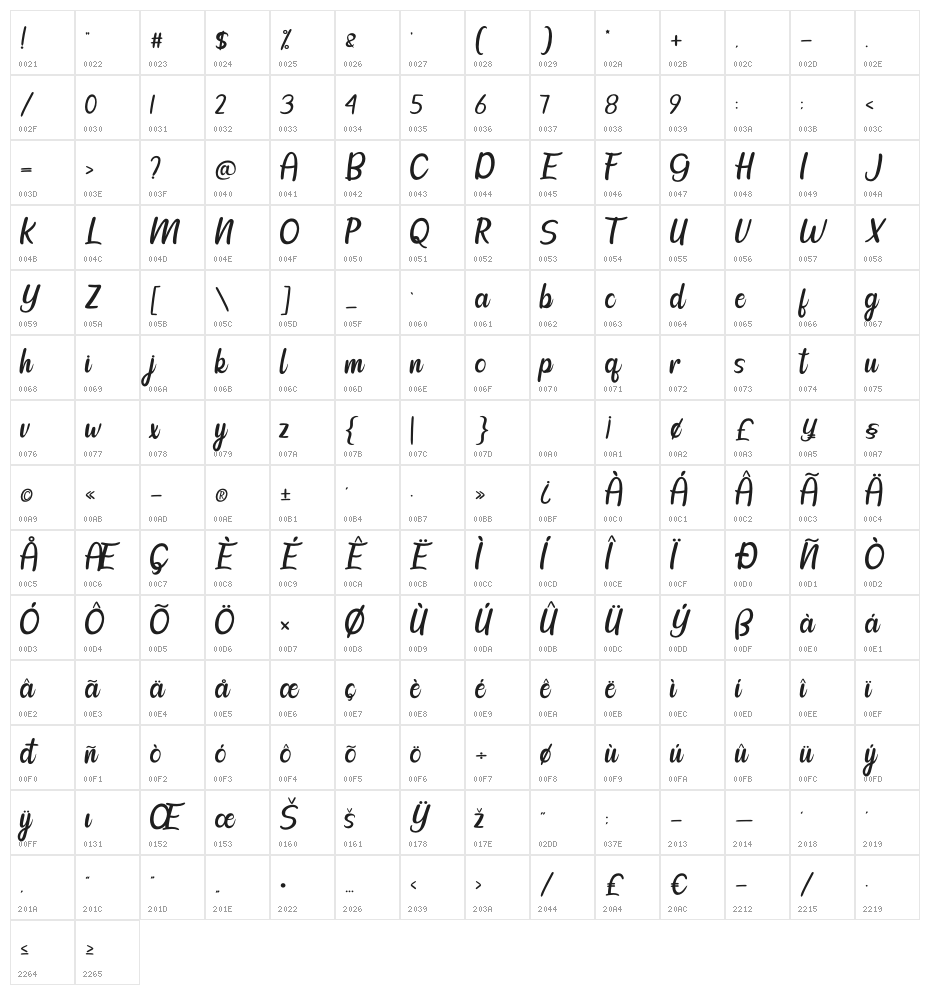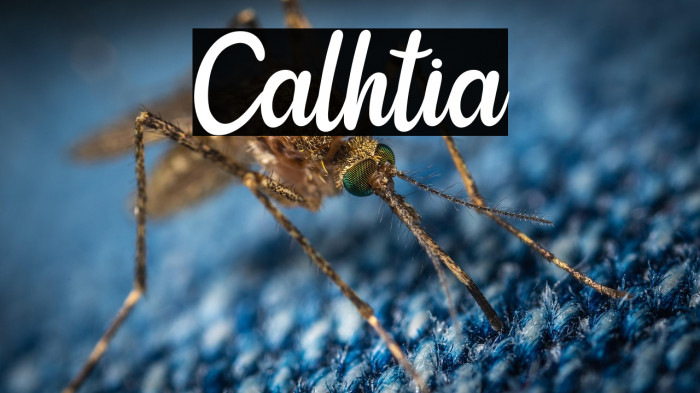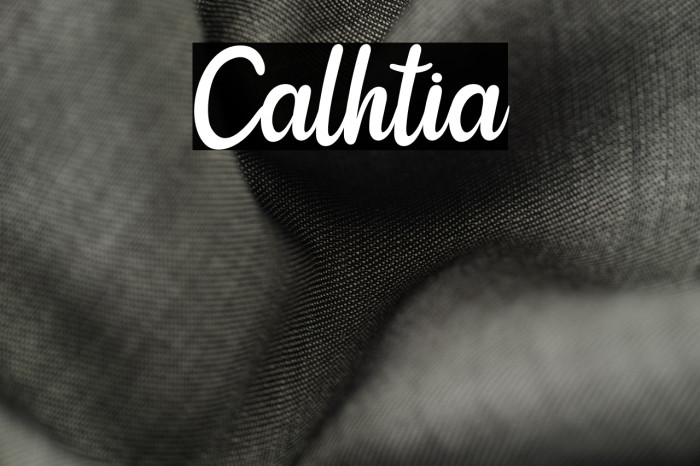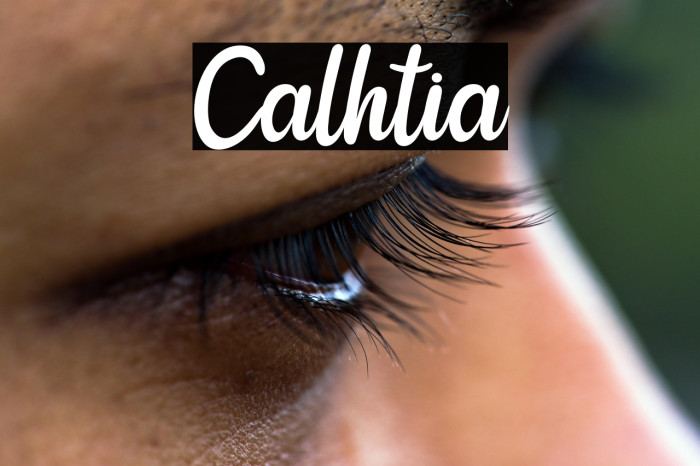
Calhtia Font
Calhtia Description
This font features a lively and flowing script style, characterized by its smooth, cursive strokes and elegant curves. The uppercase letters are bold and slightly slanted, giving a sense of movement and dynamism. The lowercase letters maintain a consistent flow, with rounded edges and a playful touch. The numerals are clear and easy to read, matching the overall style of the alphabet. Special characters are well-integrated, maintaining the font's cohesive look. This font exudes a friendly and approachable vibe, making it suitable for a variety of creative applications.
| Use Case | Logos, Invitations, Greeting Cards |
| Proposed Projects | Ideal for wedding invitations, greeting cards, personal branding, and creative projects requiring a personal touch. |